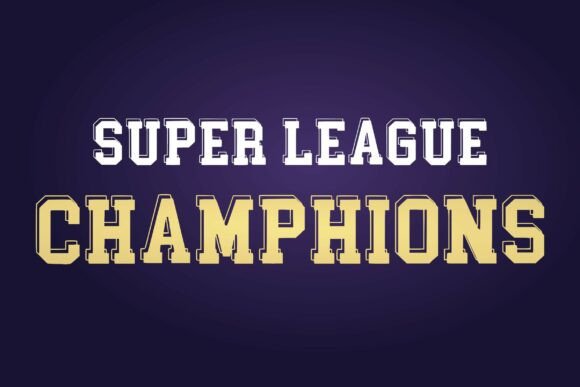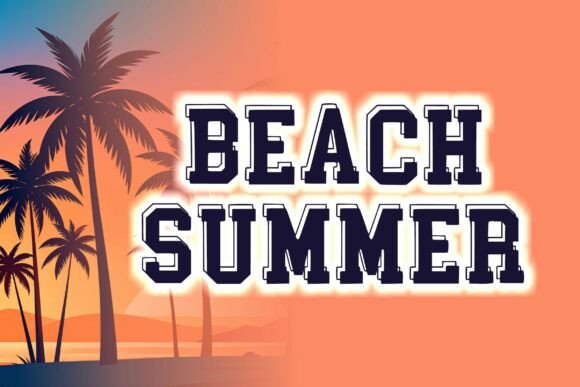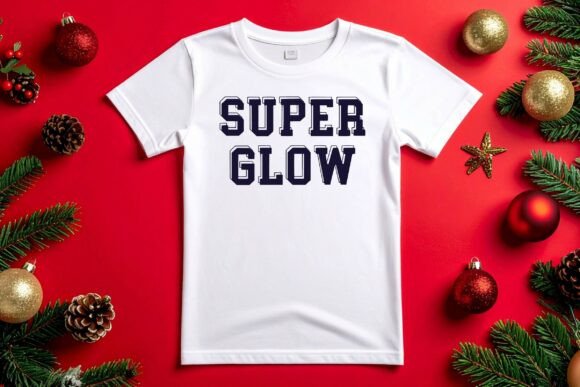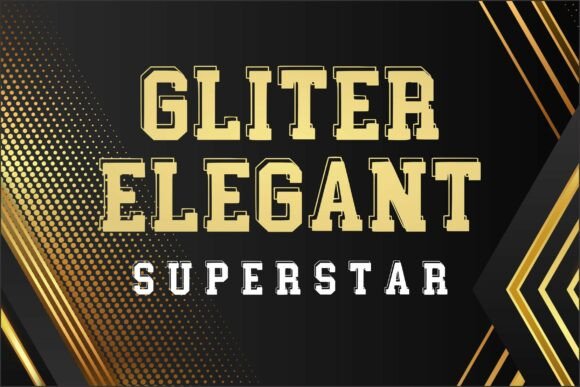
Command the Field with Freedom Fighter Font: The Ultimate Choice for Champions
Are you looking for a font that embodies the spirit of victory and champions? Look no further than the Freedom Fighter font, a powerful slab-serif typeface designed to inspire and dominate. This athletic typography masterpiece is perfect for sports team branding, fitness apparel, and motivational posters, ensuring your message is heard loud and clear.
A Masterclass in Athletic Typography
Freedom Fighter font is a bold, “varsity” inspired typeface that exudes confidence and strength. Its distinctive inner-line detail adds depth and motion, making it a go-to choice for designers and crafters who want to create a lasting impact. The font’s heavy, architectural presence is perfect for making a statement, whether it’s on a stadium scoreboard or a digital banner.
Engineered for Versatility
The Freedom Fighter typeface is designed to be versatile, making it perfect for the competitive sports market. One of its standout features is the dual-line “sportline” effect, which allows for easy multi-color layering. This makes it simple to match your team’s colors and create a cohesive brand identity. Whether you’re designing for a sports team, fitness brand, or motivational campaign, the Freedom Fighter font is the perfect choice.
Pairing Suggestions for a High-Performance Look
To take your design to the next level, pair the Freedom Fighter font with a condensed sans-serif font for player stats or technical details. This maintains a high-performance look throughout the project, ensuring that your design is both visually appealing and effective. The contrast between the bold, slab-serif Freedom Fighter font and the clean, sans-serif font creates a visually appealing combination that is sure to impress.
Freedom Fighter font is perfect for designers and crafters who want to create a lasting impact. Its bold, athletic design makes it perfect for a wide range of applications, including:
- Sports team branding: Create a cohesive brand identity with the Freedom Fighter font, perfect for team logos, jerseys, and merchandise.
- Fitness apparel: Make a statement with bold, eye-catching designs that inspire and motivate.
- Motivational posters: Create motivational posters that inspire and dominate, perfect for gyms, fitness studios, or motivational events.
Why Choose Freedom Fighter Font?
So why choose the Freedom Fighter font? Here are just a few reasons:
- Bold and Athletic Design: The Freedom Fighter font is designed to make a statement, with a bold, athletic design that’s perfect for sports teams, fitness brands, and motivational campaigns.
- Versatile and Adaptable: The font’s dual-line “sportline” effect and pairing suggestions make it easy to adapt to a wide range of design applications.
- High-Impact Typography: The Freedom Fighter font is engineered for impact, ensuring that your message is heard loud and clear.